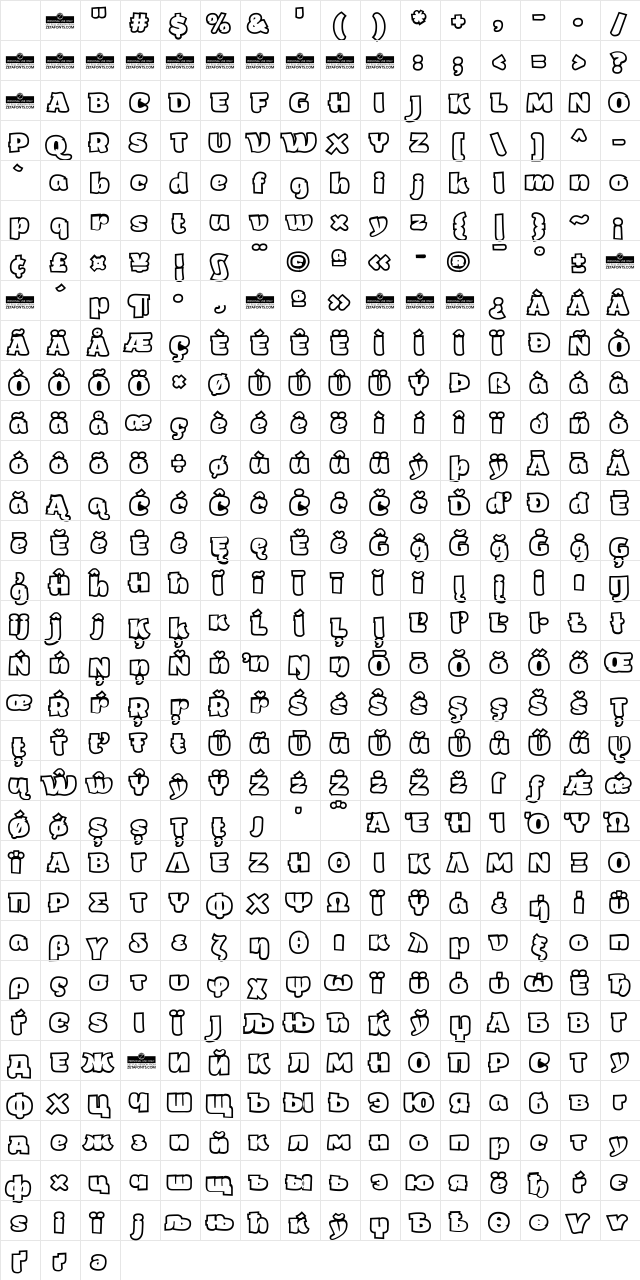
Complete Arturo Trial Heavy Outline glyph index. Displaying only characters natively supported by Arturo Trial Heavy Outline font.
Arturo Trial is built around its visual character rather than neutral utility - its distinctive forms are designed to make an impression at display sizes.
Font Pairing: Pair with a clean neutral sans-serif for body copy to let Arturo Trial's character lead without overwhelming the composition.
Pro Tip: Use Arturo Trial exclusively at display sizes - it was designed to be seen, not read at length. Let a neutral companion handle body copy.